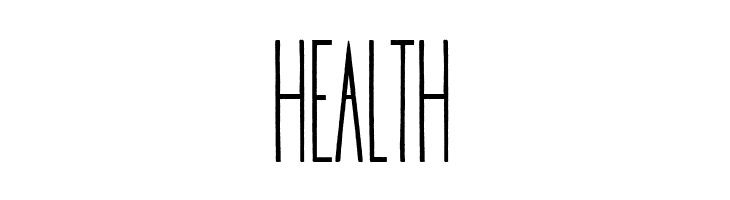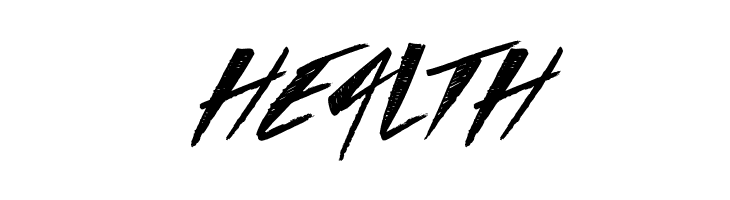
A tall, narrow font with a modern and sleek design.
A bold, hand-painted font with an expressive and dynamic style.
A playful, handwritten font with bold, irregular strokes and a casual vibe.
A bold, jagged font ideal for horror-themed designs.
A bold, brushstroke-style font with a textured, hand-painted appearance.
A bold, brush-style font with dynamic, rebellious strokes.
A bold, brush-style font with dynamic, edgy strokes.
A bold, brush-style script font with dynamic and expressive strokes.
A graceful script font with flowing, cursive strokes and elegant design.
A lively, expressive script font with a handwritten feel and elegant curves.